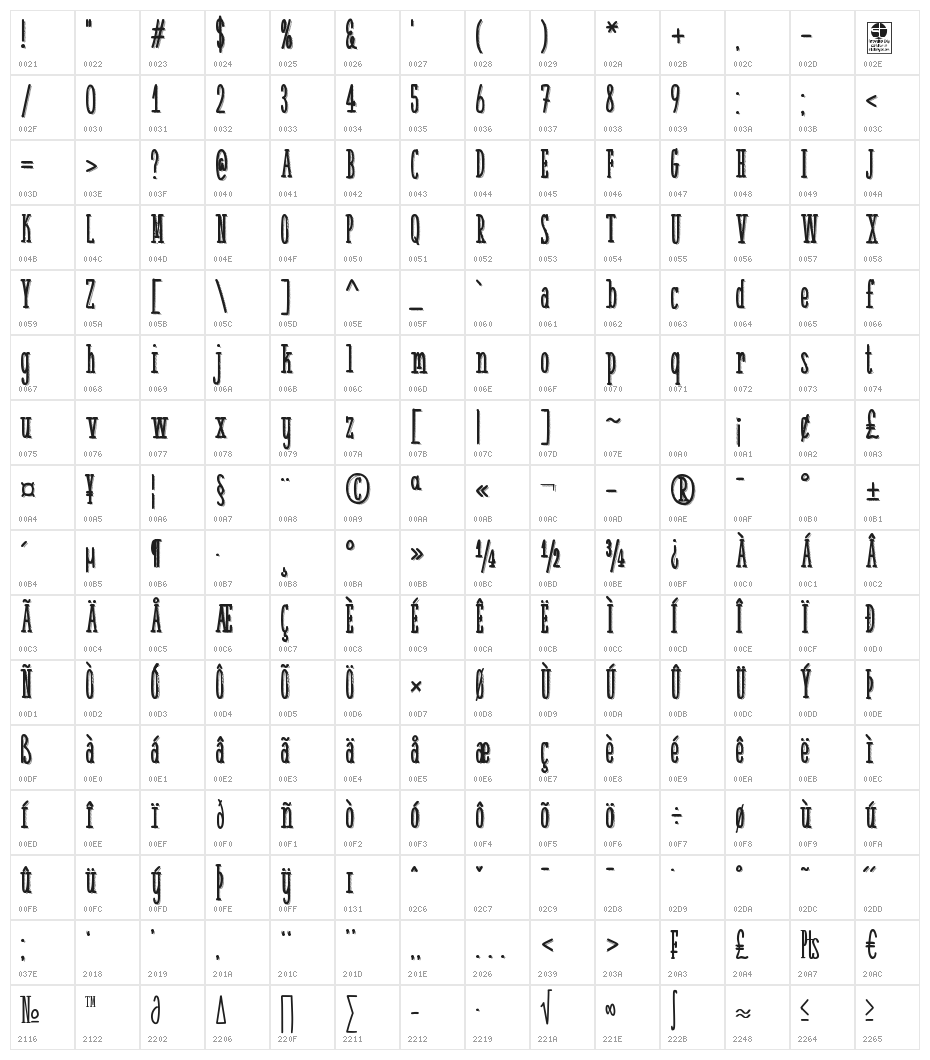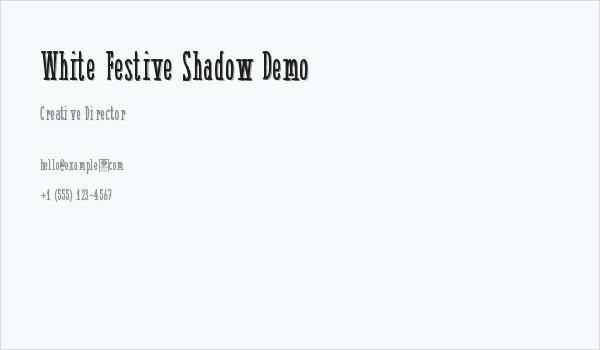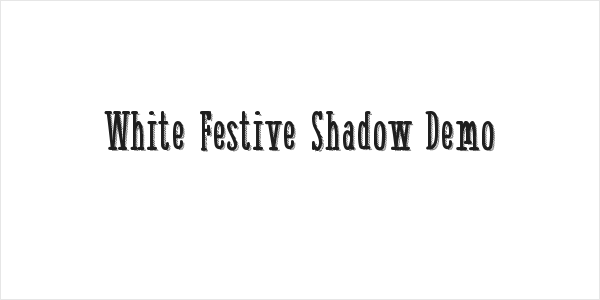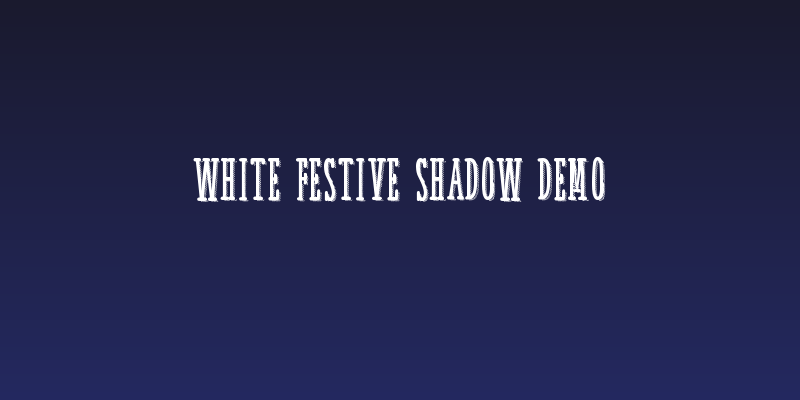
White Festive Shadow Demo Font
White Festive Shadow Demo Description
This font features a bold and decorative style with a unique shadow effect that gives it a three-dimensional appearance. The characters are tall and slightly condensed, with a playful yet sophisticated flair. The uppercase and lowercase letters maintain a consistent design, with the shadow adding depth and visual interest. The numerals and special characters are equally stylized, making them suitable for eye-catching designs. The font's overall aesthetic is reminiscent of vintage poster typography, combining classic elements with a modern twist.
| Proposed Projects | Ideal for festive invitations, posters, branding projects, and any design requiring a standout, playful typeface. |